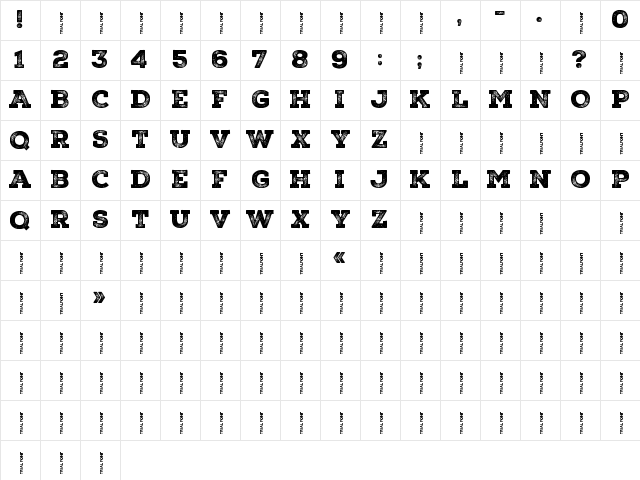
Nexa Rust Slab-Trial Black 3 Regular
Foundry: Fontfabric LLC
Designer: Fontfabric
Design Context for Nexa Rust Slab-Trial Black 3
Nexa Rust Slab-Trial Black 3 features prominent, blocky serifs that give it a confident, grounded presence - equally at home in editorial settings and bold branding work.
Pro Tip: Use Nexa Rust Slab-Trial Black 3 for headlines and subheadings where its slab serifs can make an impression. It also holds up well in mid-size body copy thanks to its sturdy construction.